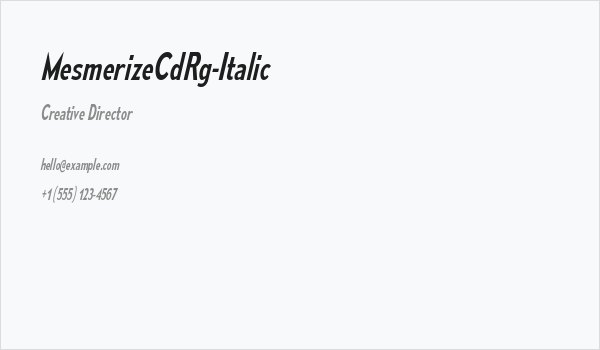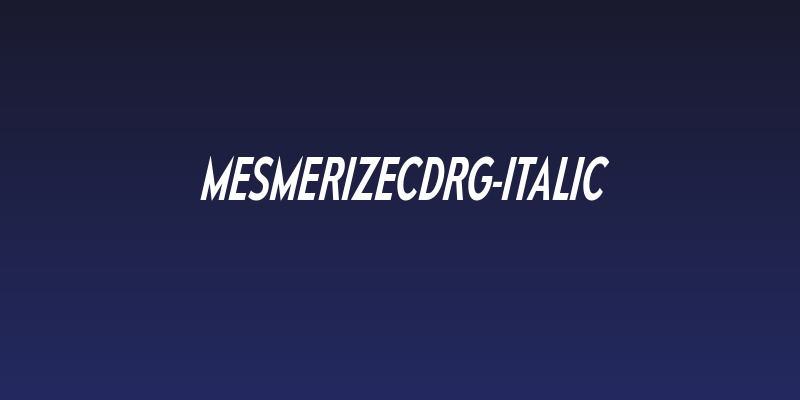
MesmerizeCdRg-Italic Font
MesmerizeCdRg-Italic Description
This font exhibits a dynamic and modern style with a distinct italic slant, giving it a sense of motion and energy. The characters are bold and condensed, providing a strong visual impact. The uppercase and lowercase letters maintain a consistent style, with smooth curves and sharp edges that enhance readability. The numerals are clear and well-defined, matching the overall aesthetic of the alphabet. Special characters are included, maintaining the same bold and italicized design, making this font versatile for various applications.
| Use Case | Headlines, Logos, Advertising |
| Proposed Projects | Ideal for branding, advertising, and headlines where a strong and energetic presence is needed. |